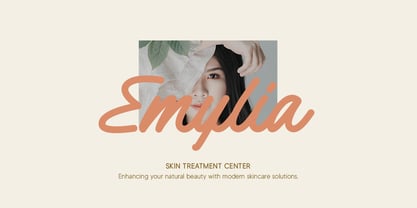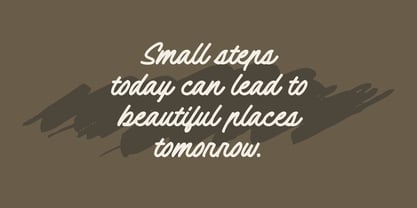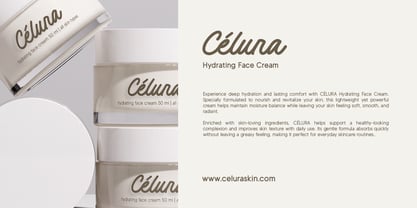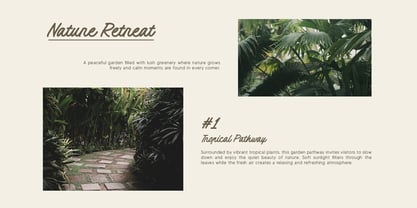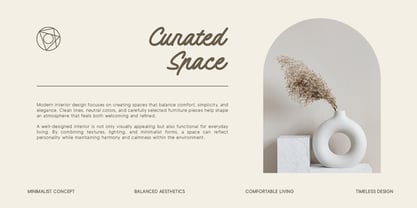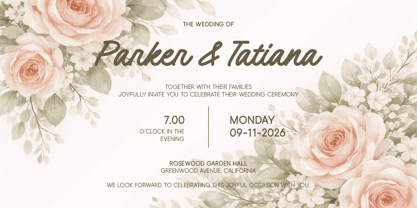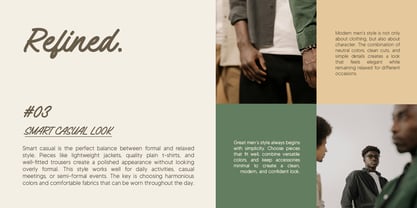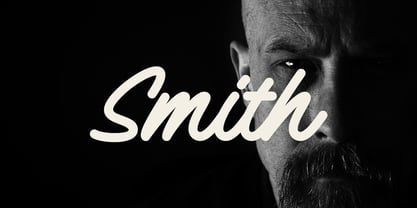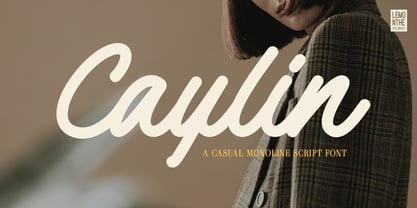
Caylin
by Lemonthe
The Caylin Font Family was designed by Dwi Ahidian and published by Lemonthe. Caylin contains 1 styles. More about this family
Caylin is a casual monoline script font that captures a smooth and natural handwritten feel. Its flowing strokes and balanced letterforms create a clean yet expressive look, making it easy to read while still feeling warm and stylish. The consistent line weight gives it a modern touch, perfect for designs that aim to feel approachable and effortlessly elegant. This font works beautifully across a variety of design needs, from branding and logos to social media, invitations, and lifestyle visuals. Caylin brings a relaxed and refined character, making it especially suitable for projects that want to convey authenticity, softness, and a contemporary handwritten aesthetic.